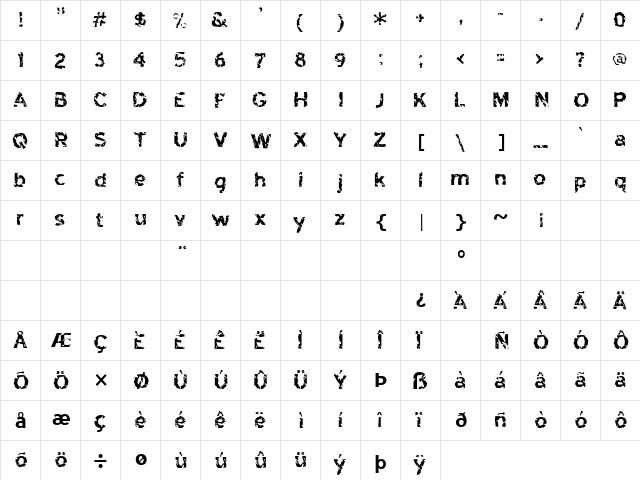
Highway to Heck Regular
Highway to Heck is a composed and adaptable typeface that performs quietly and consistently across a wide range of design contexts.